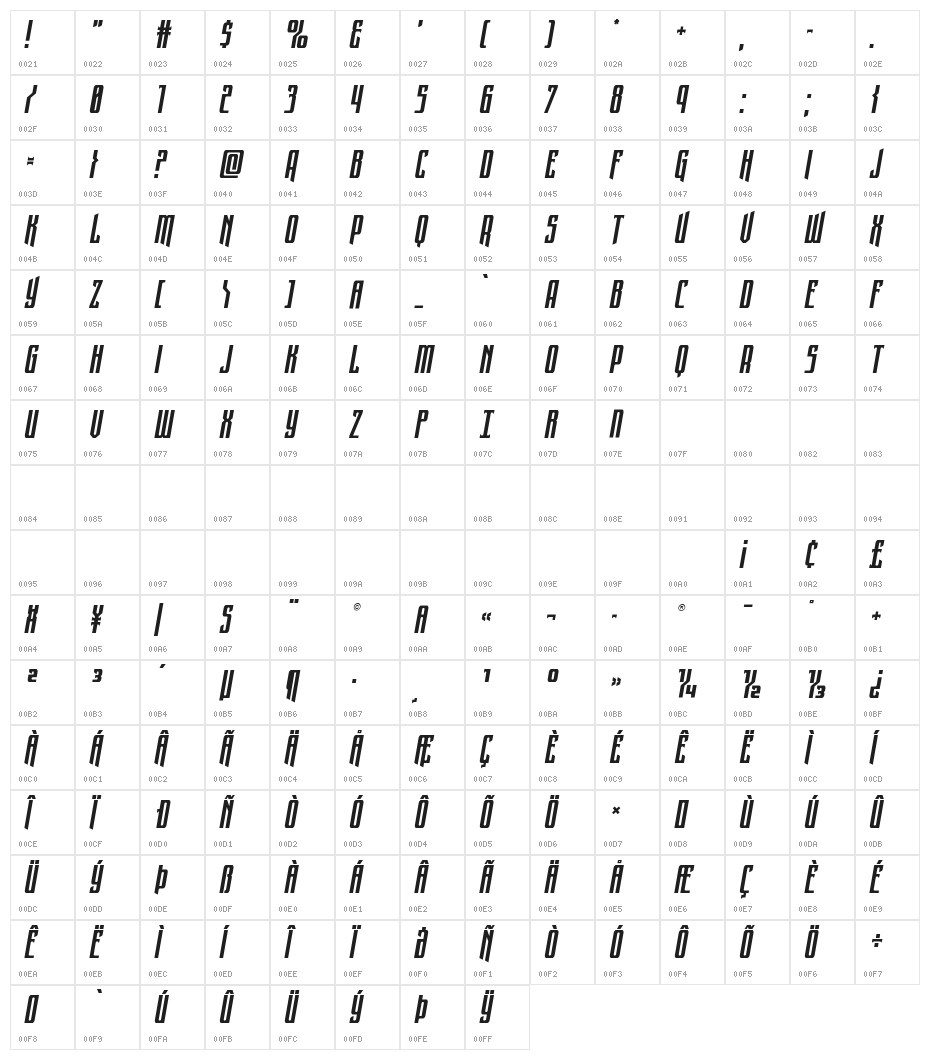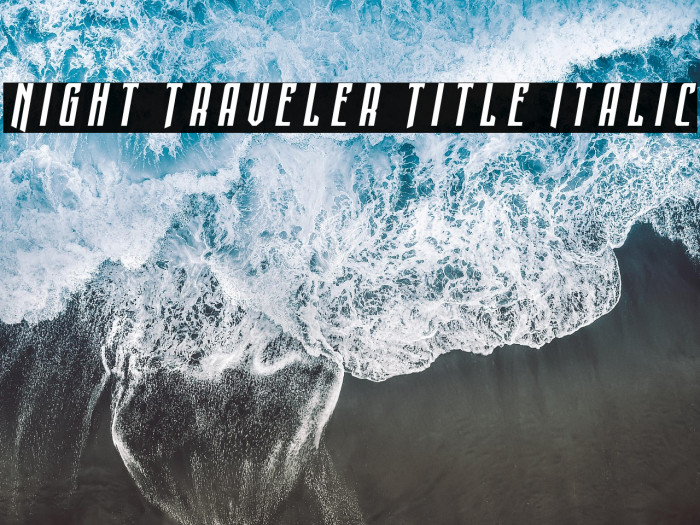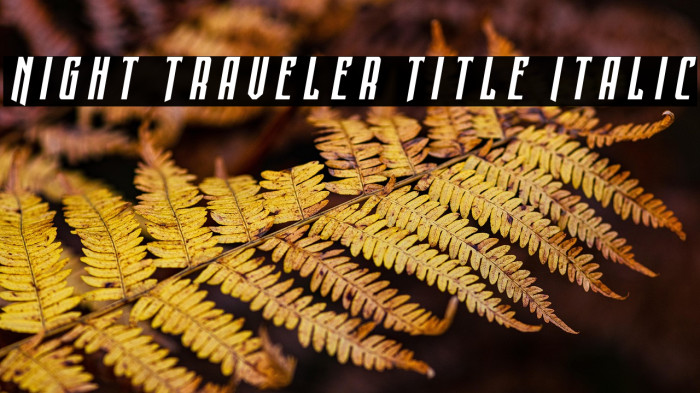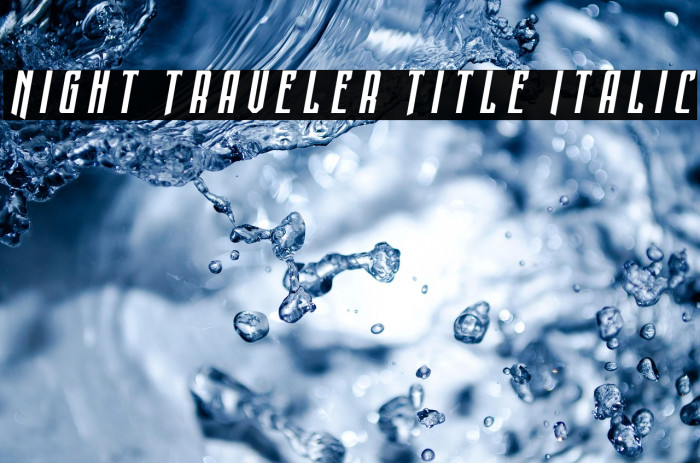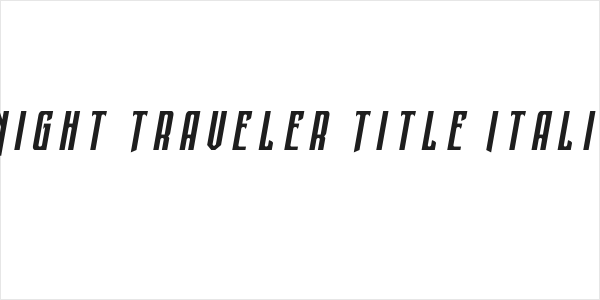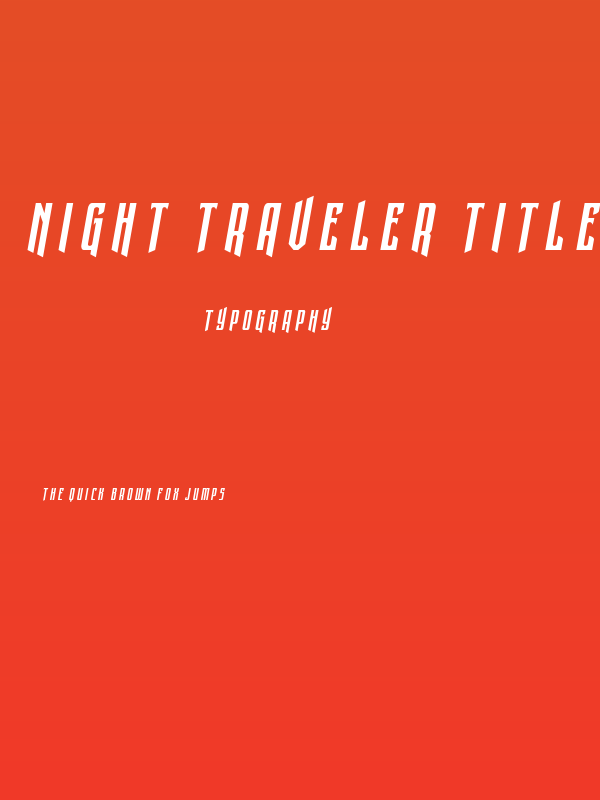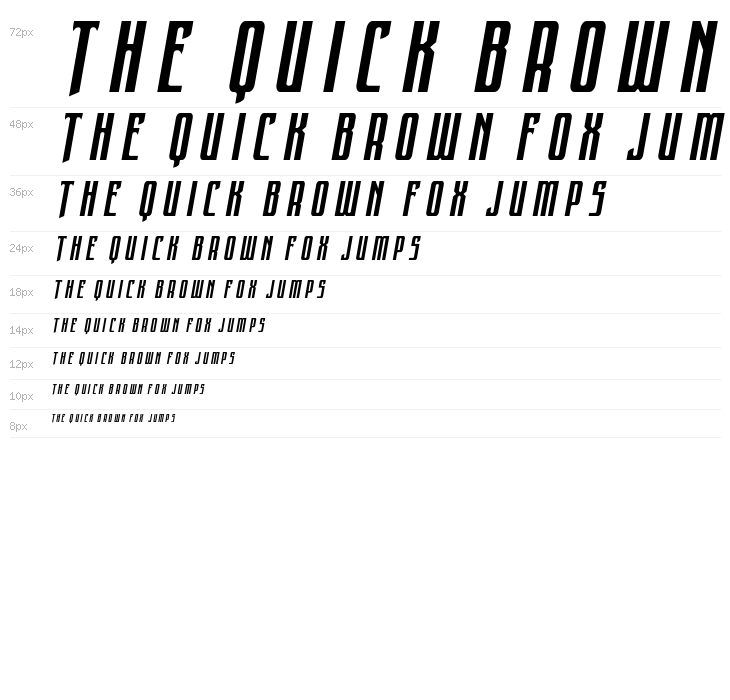
Night Traveler Title Italic Font
Night Traveler Title Italic Description
This font features a bold, italicized style with a strong, angular design. The characters have a futuristic and dynamic appearance, characterized by sharp edges and a forward-leaning stance. The uppercase letters are particularly striking, with a consistent slant that adds a sense of motion and urgency. The numbers and special characters maintain this aesthetic, ensuring a cohesive look across all glyphs. The font's design is both modern and assertive, making it suitable for projects that require a bold statement.
| Proposed Projects | Ideal for sci-fi movie posters, video game titles, and dynamic branding projects. |